From GQ to Obama: How Gotham Became a Typeface of Power
Some typefaces become popular because they are useful. Gotham became influential because designers discovered that it could make an organization sound confident, contemporary and established at the same time.
That quality has taken Gotham far beyond its original commission. It became one of the defining elements of Barack Obama’s presidential campaigns, appeared at the World Trade Center, shaped the visual language of Netflix and was adopted by major institutions such as New York University and Michigan State University.
The interesting part is not simply that all of them used the same font. It is why Gotham made sense for such different identities.
Gotham Started With GQ, but Its Visual Language Came From New York
Gotham was designed by Jonathan Hoefler and Tobias Frere-Jones in 2000 after a commission from GQ. Early versions even circulated under the working name GQ Sans, before the typeface made its public debut in the magazine in 2001.
Instead of looking primarily at other typefaces, the designers drew from a much less polished source: twentieth-century lettering found across New York.
Commercial façades, enamel signs, posters and architectural lettering supplied much of Gotham’s visual DNA. One particularly important reference was the lettering on the Eighth Avenue façade of the Port Authority Bus Terminal.
This distinction matters.
Gotham is usually described as a geometric sans serif, but it does not have the almost ideological geometry of something like Futura. Its capitals have the solidity of letters made for buildings and signs rather than the feeling of shapes constructed on a drawing board.
That gives Gotham an unusual combination of qualities. It feels modern, but not futuristic. Geometric, but not delicate. Neutral enough to build a large identity around, yet distinctive enough to establish a recognizable tone.
Those qualities would become much more important a few years later.
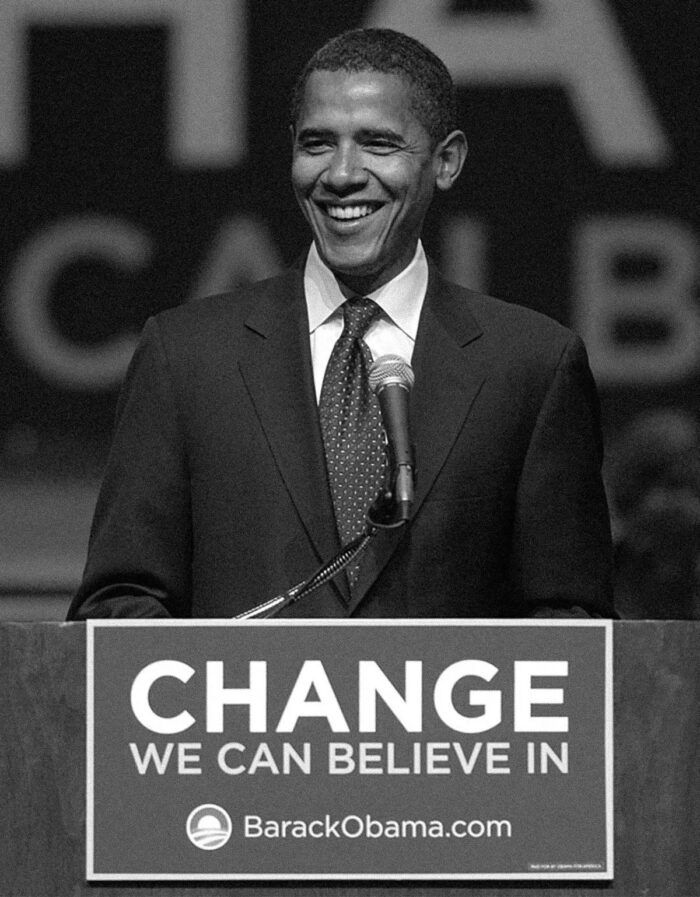
Obama 2008 Turned Gotham Into a Political Voice
The project that changed Gotham’s status was Barack Obama’s 2008 presidential campaign.
Designers Scott Thomas and John Slabyk selected Gotham as the campaign’s signature typeface in 2007, pairing it with the now-famous rising-sun identity originally developed by Sol Sender and his team.
Gotham Bold appeared across campaign signs, posters, websites, merchandise and local campaign material. More importantly, it was treated as part of a system rather than simply as a font choice.
The campaign established typography guidelines and prepared visual assets that could be distributed to teams working across the country. The same typographic language could therefore survive thousands of applications without every local office inventing its own version of the campaign.
That consistency is what made Gotham so powerful here.
Political graphics had traditionally borrowed heavily from patriotic symbolism and conservative serif typography. Obama’s identity felt different. Gotham’s large capitals and straightforward construction communicated authority, but the absence of traditional political ornament made the campaign feel noticeably more contemporary.
The typography also worked extremely well with the campaign’s short language: CHANGE, HOPE, VOTE, state names and concise calls to action. Gotham Bold could make those words occupy space without making them look aggressive or decorative.
The relationship became so strong that Gotham continued into the Obama White House, the 2012 campaign and eventually the Obama Foundation.
The Foundation has since pushed that association even further. Working with agency Manual Creative and Monotype, it developed customized expressions including Gotham Condensed and new Inline, Slab and Stencil treatments while deliberately preserving the connection to the original campaign identity.
Very few typefaces become so closely attached to a political figure that abandoning them would mean abandoning part of the visual history.
Gotham reached that point with Obama.
Before Obama, Gotham Had Already Appeared at the World Trade Center
There is another Gotham application that helps explain why the Obama identity worked so well.
On July 4, 2004, the cornerstone for the planned Freedom Tower at the World Trade Center site was unveiled. The memorial inscription, designed by Michael Gericke of Pentagram, was set in Gotham.
Gericke’s reasoning is revealing. Gotham did not feel like typography that had just been invented and would quickly become dated.
That is one of its strongest characteristics as an identity typeface.
Gotham references twentieth-century American public lettering without looking deliberately retro. As a result, it can suggest permanence without resorting to a serif typeface or classical typography.
The World Trade Center application demonstrated that quality before the Obama campaign turned it into something millions of people would recognize.
That update feels appropriate for a typeface whose reputation was built on systems.
Gotham’s most important appearances were never simply attractive pieces of typography. GQ, the Obama campaign, the World Trade Center, Netflix and major universities all needed typography capable of carrying an identity through many different formats.
Gotham succeeded because it could disappear into that system while still giving the system a voice.
That is much harder to design than a font that simply looks good.